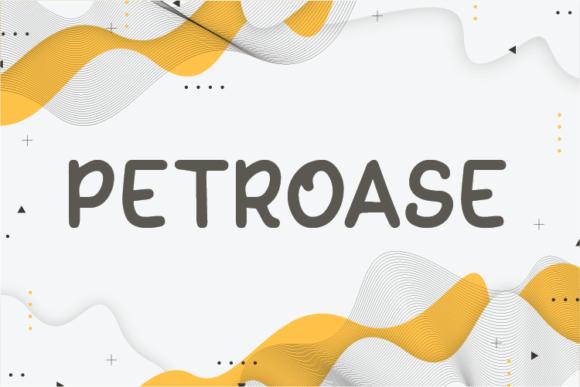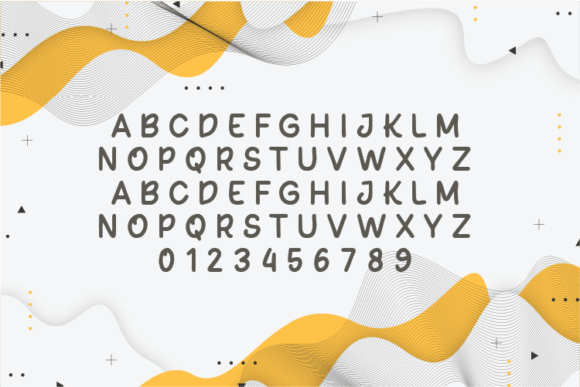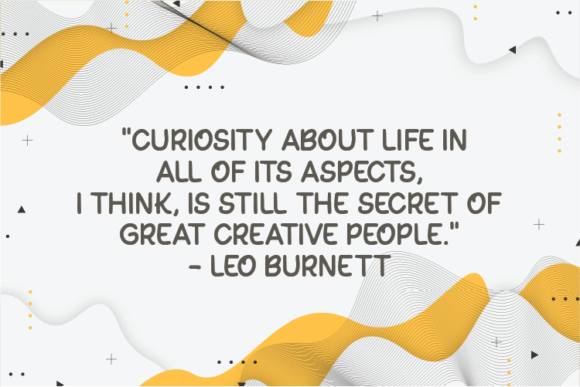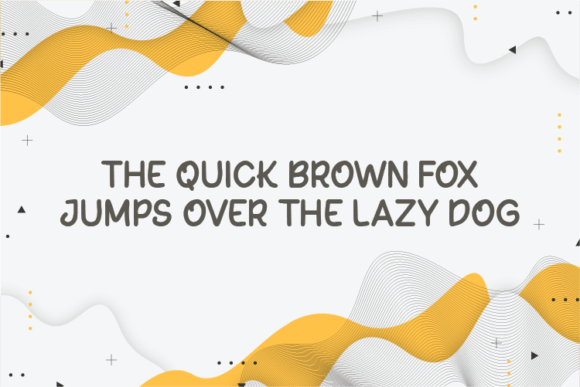
Petroase Font
About Petroase Font
Petroase sounds like a fascinating and unique natural handwritten font, emphasizing the preservation of each character’s original indentation without alterations. This distinct feature adds a layer of authenticity and charm to the font, making it particularly interesting for various design applications.
The fact that Petroase is highlighted as suitable for quotes, notes, tees, and product designs suggests its versatility in conveying a natural and organic aesthetic. Handwritten fonts often bring a personal and human touch to designs, making them ideal for projects that aim to connect with the audience on a more intimate level.
Consider experimenting with Petroase across different design projects to fully explore its unique qualities. Whether it’s conveying a heartfelt quote, adding a personal touch to notes, or enhancing the appeal of product designs, Petroase seems to offer a distinct and natural charm.
Fonts like Petroase can contribute to a warm and inviting atmosphere in design, making them well-suited for a variety of creative endeavors. Enjoy incorporating Petroase into your projects, and may it bring a touch of authenticity and uniqueness to your designs!